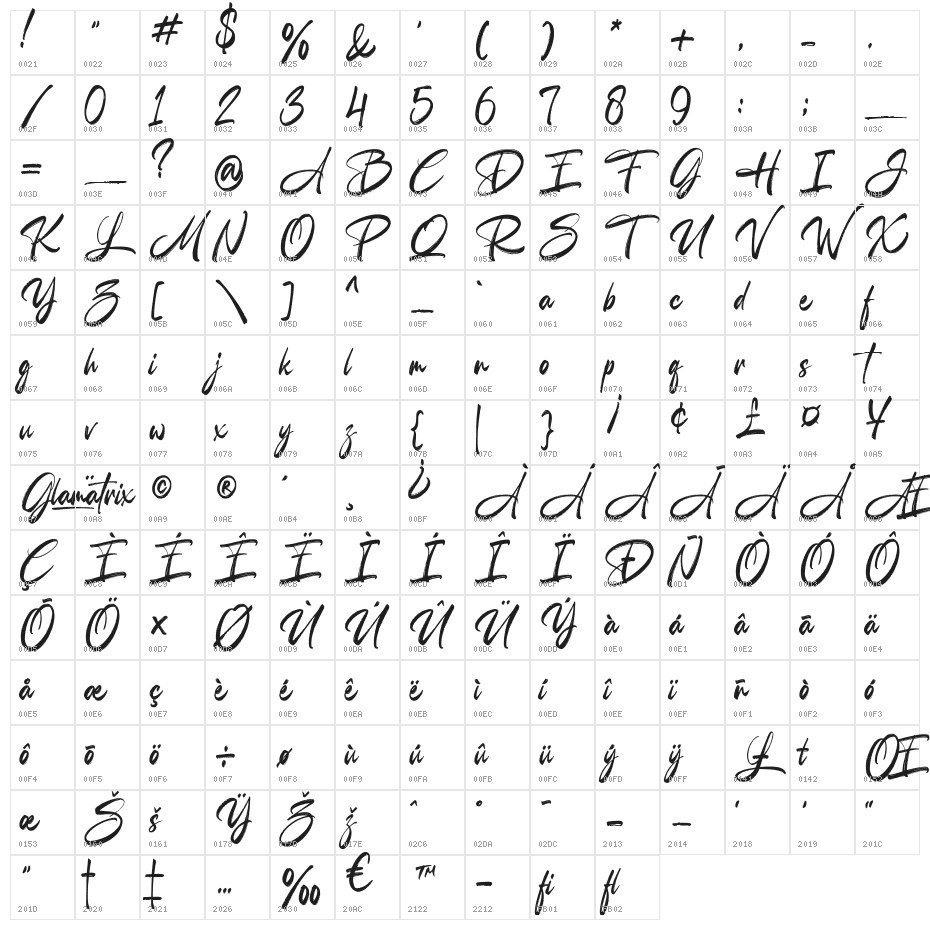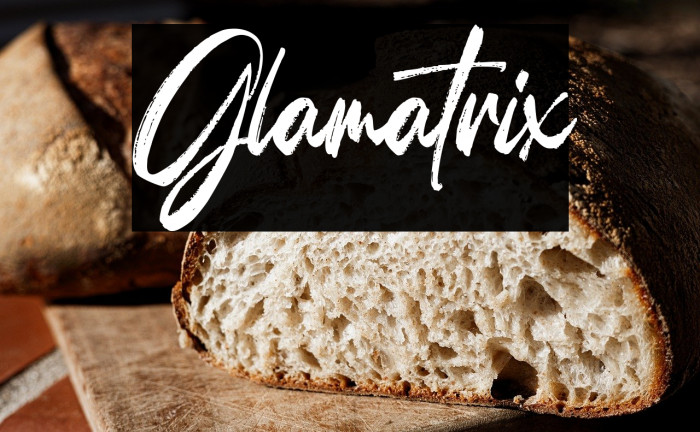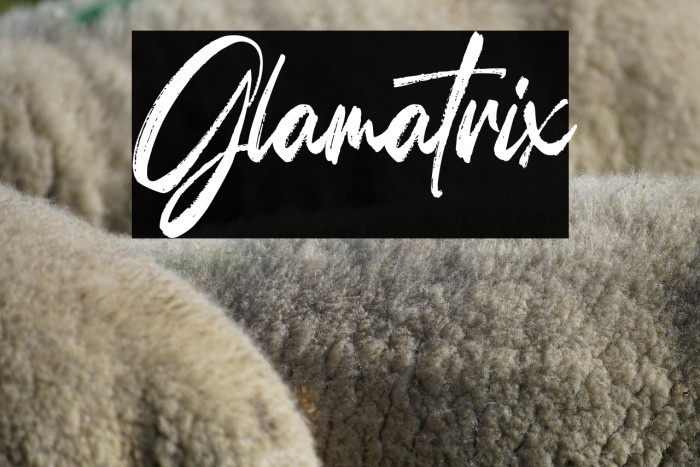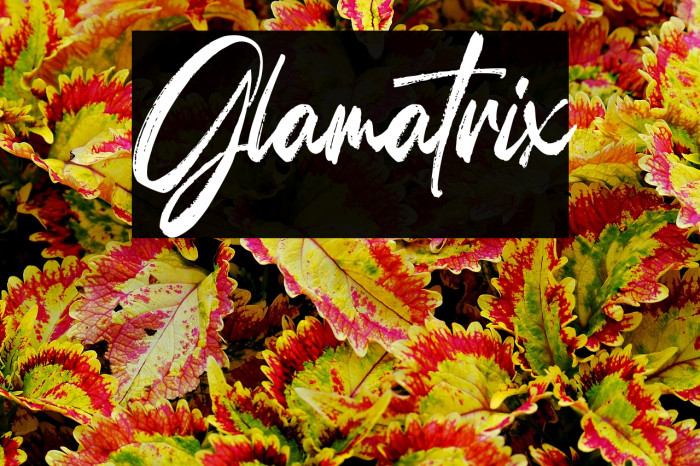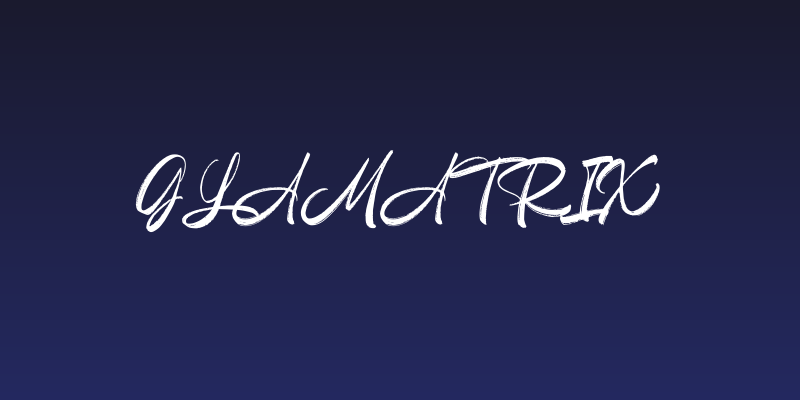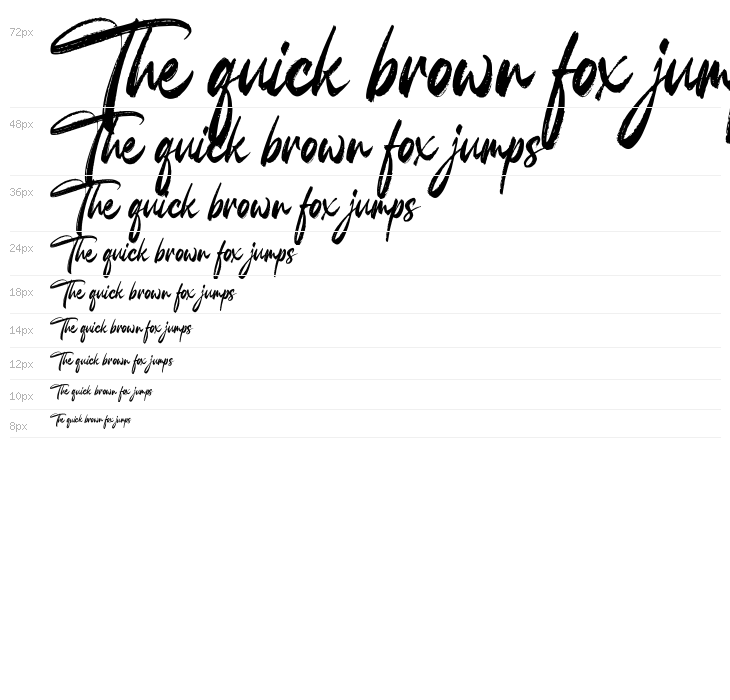
Glamatrix Font
Glamatrix Description
This font features a dynamic and expressive handwritten style, characterized by its fluid and cursive letterforms. The strokes are bold and energetic, giving a sense of movement and personality. The uppercase letters are slightly more structured, while the lowercase letters exhibit a more casual and free-flowing appearance. Numbers and special characters maintain the same lively aesthetic, making the font versatile for various creative applications. The overall impression is one of spontaneity and artistic flair, suitable for projects that require a personal touch.
| Use Case | Logos, Headlines, Artistic projects |
| Proposed Projects | Ideal for branding, invitations, greeting cards, and artistic projects that require a personal and lively touch. |